This Font is a very flexible choice and can be used in a variety of design contexts. Its ability to provide a clean, professional, contemporary look and its simplicity and visual appeal make this font good for use in the world of graphic design and modern typography.
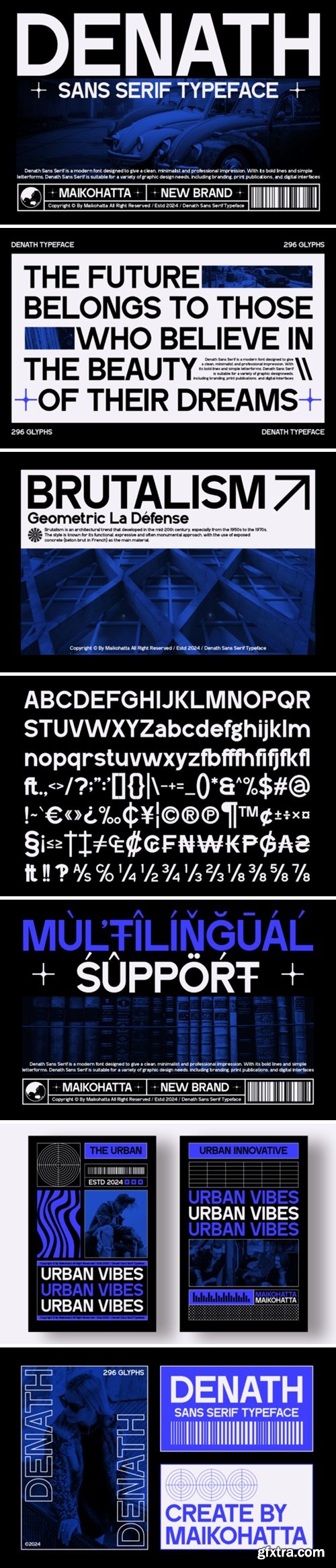
This Font is a very flexible choice and can be used in a variety of design contexts. Its ability to provide a clean, professional, contemporary look and its simplicity and visual appeal make this font good for use in the world of graphic design and modern typography.
Kellison is an elegant signature font. It’s perfect for branding, labels, photography, invitations, stationery, watermark, social media posts, advertising, product packaging, product design, and more.
History Sign Font is a stylish bold signatures script font with unique style. This font is made from a bold brush that carries a classic concept and still easy to read. This font will be suitable for many industries, such as advertisement, beauty product, event or wedding organizer, fashion, florist, handcraft, homeware, photography, and more!
Bumil is not just another font; it’s a bold experiment in modern typography. Perfectly capturing the essence of #ExperimentalFonts and #TypographyTrends, Bumil is designed to push the boundaries of conventional design. With its unique characters and stylish alternates, Bumil adds a distinctive flair to any project. Whether you’re working on cutting-edge branding, innovative posters, or creative editorial designs, Bumil’s experimental nature will make your work stand out. Join the trend towards bold and avant-garde typography with Bumil.